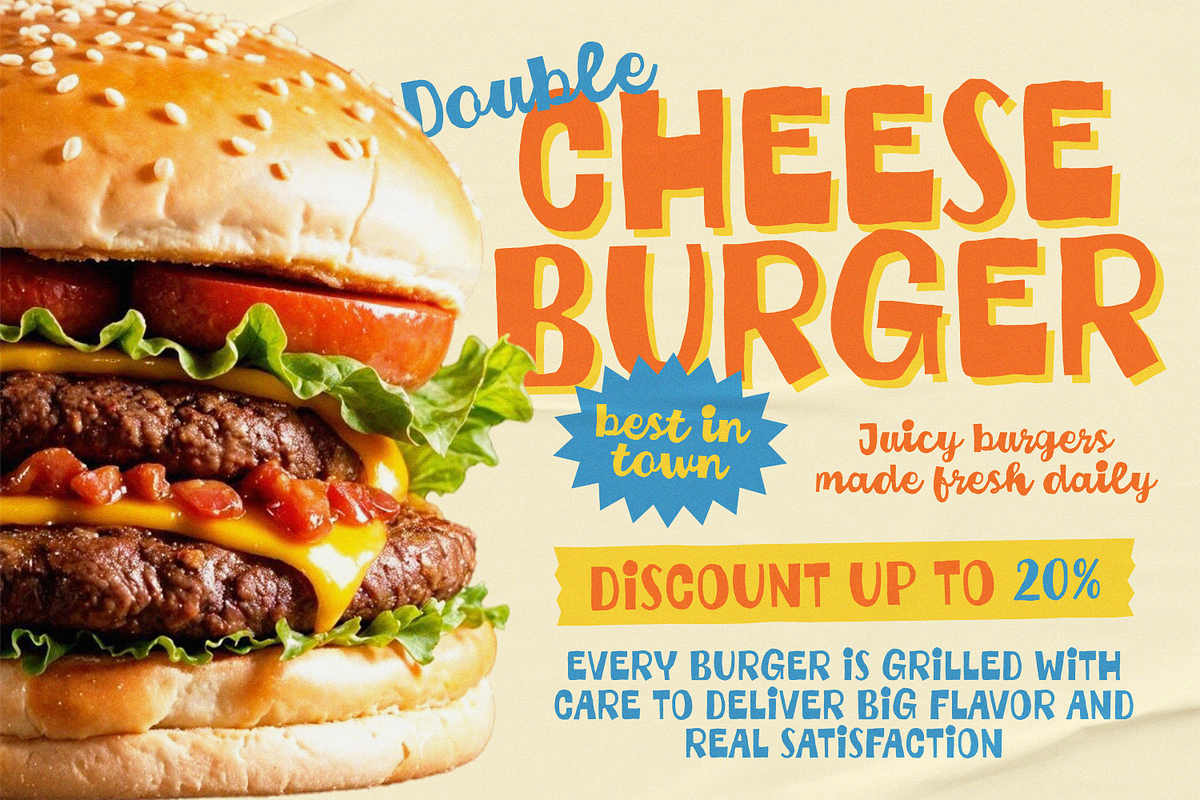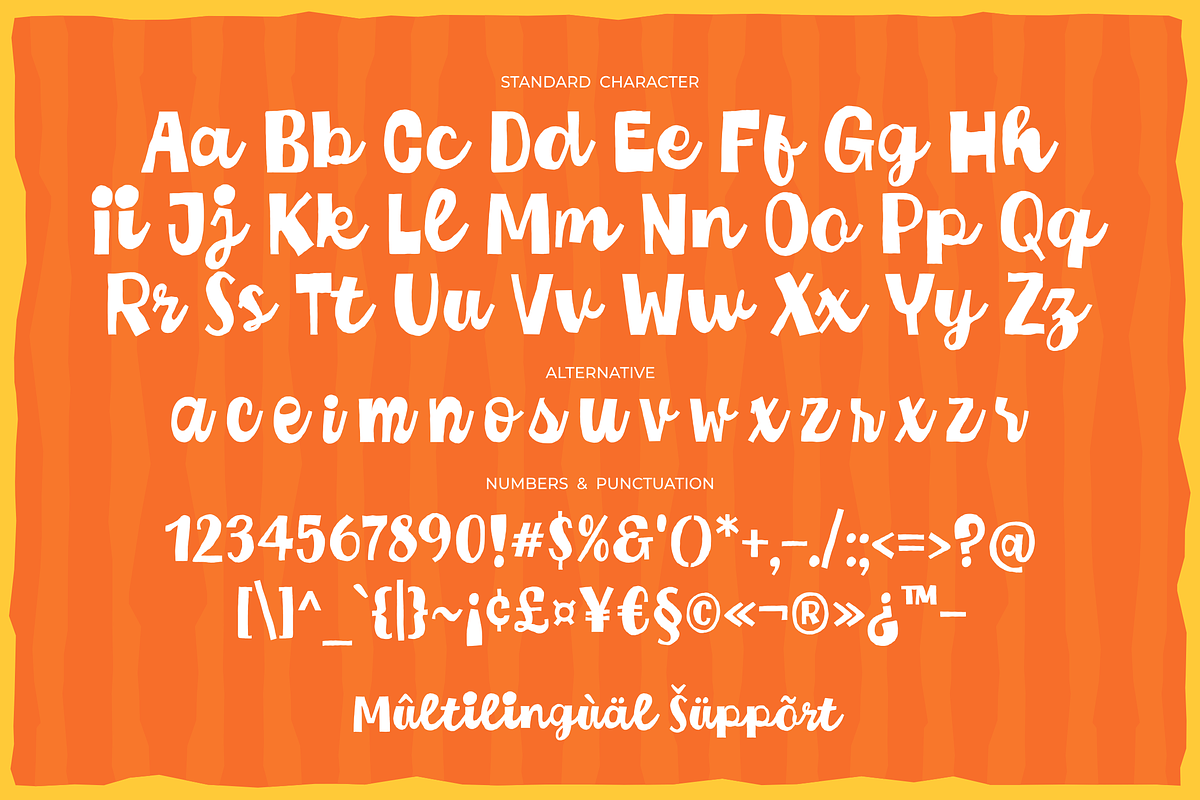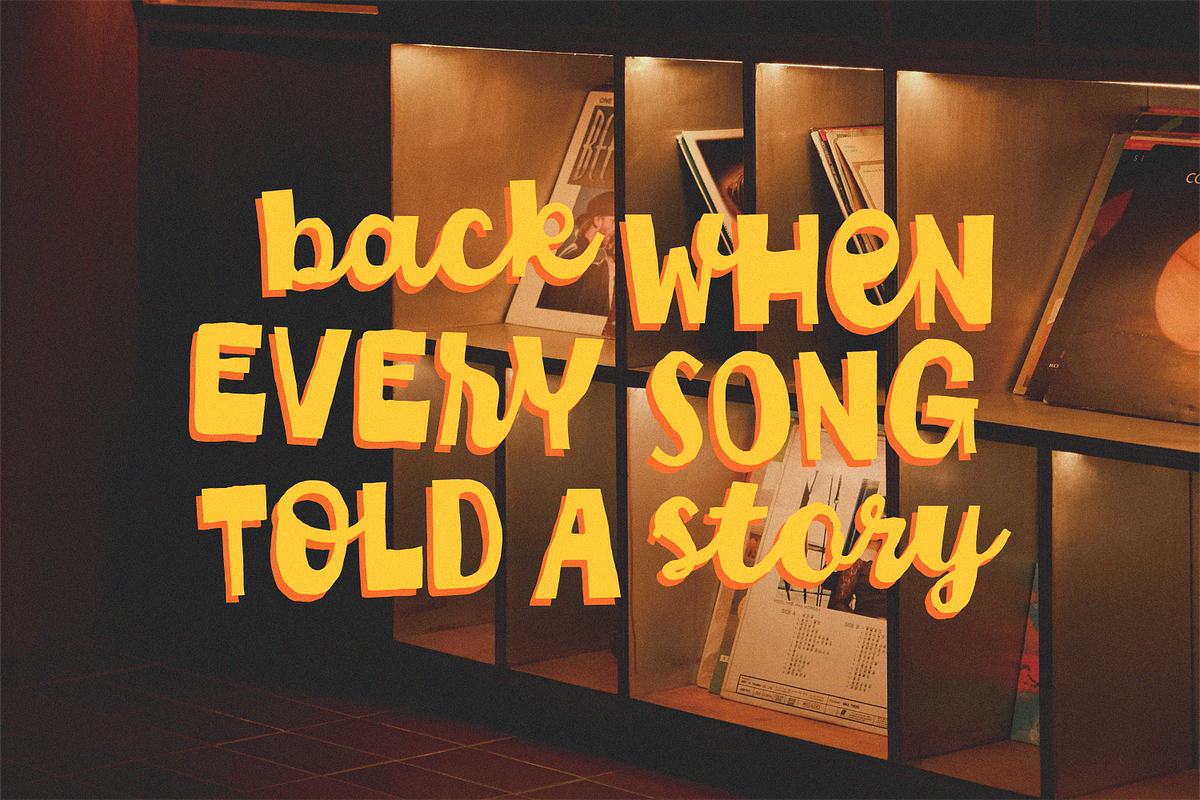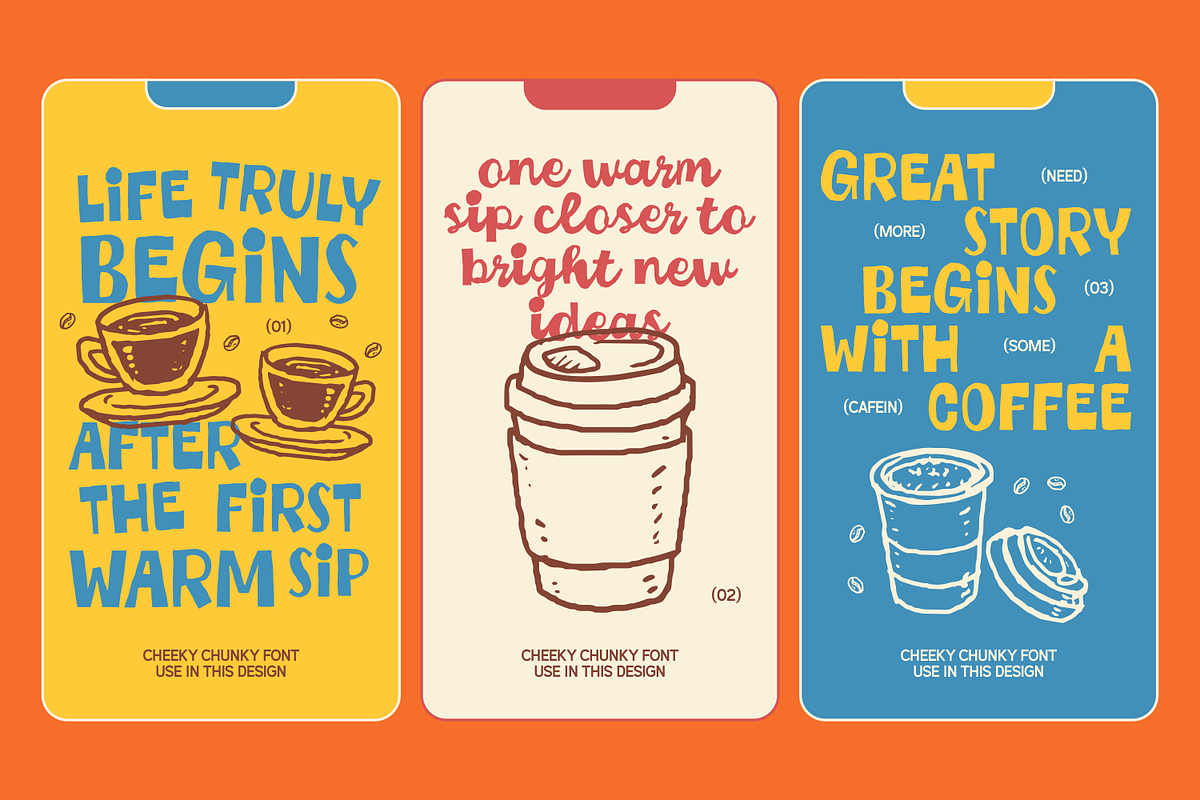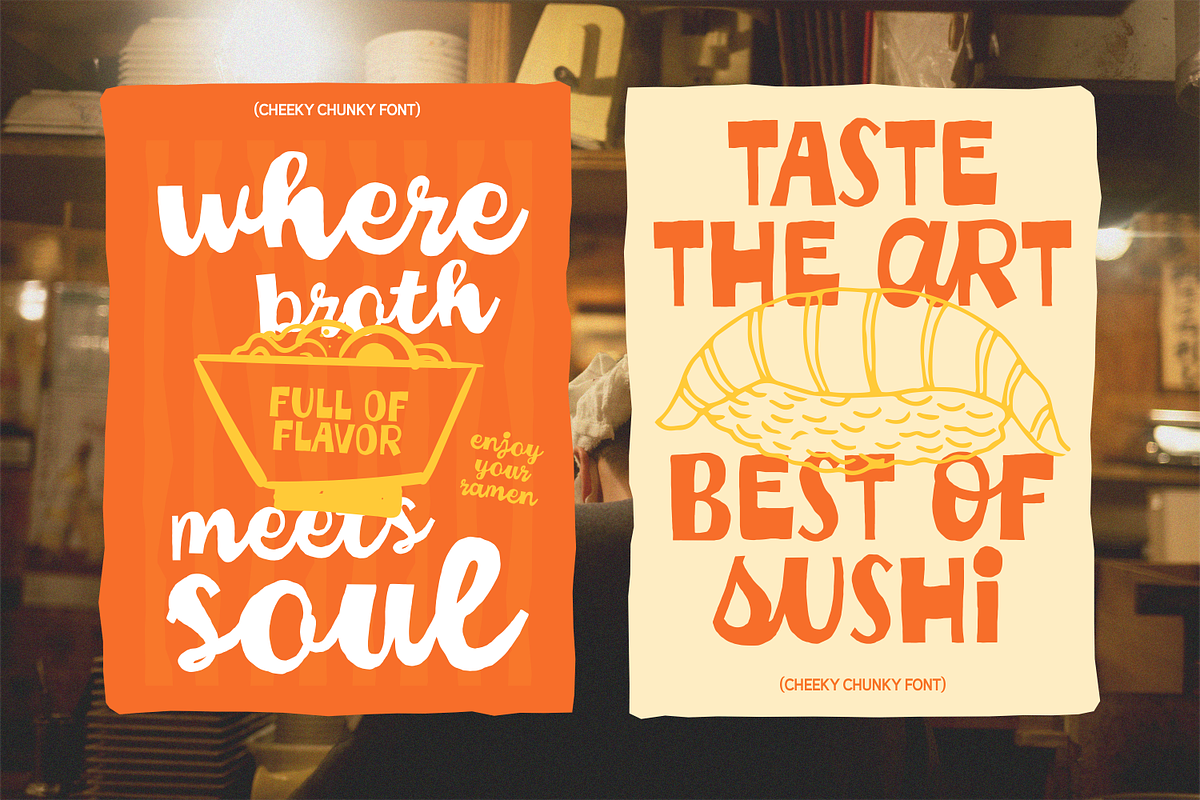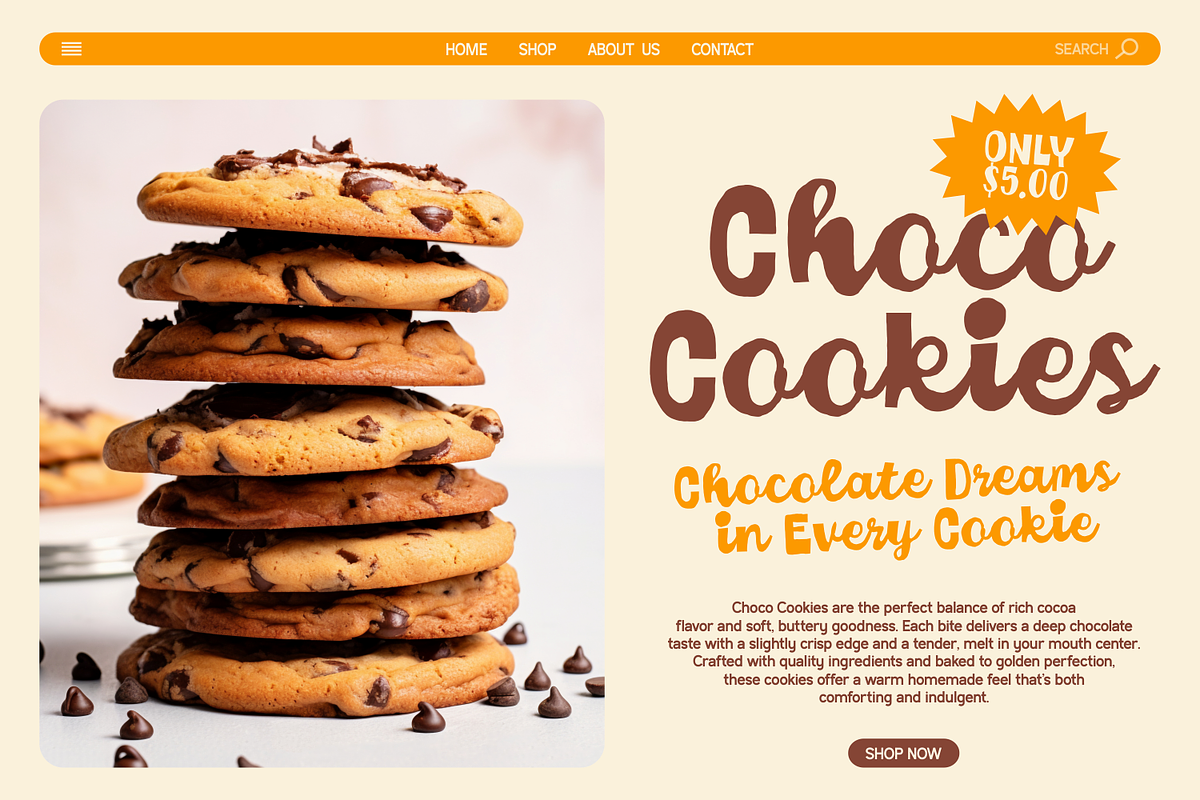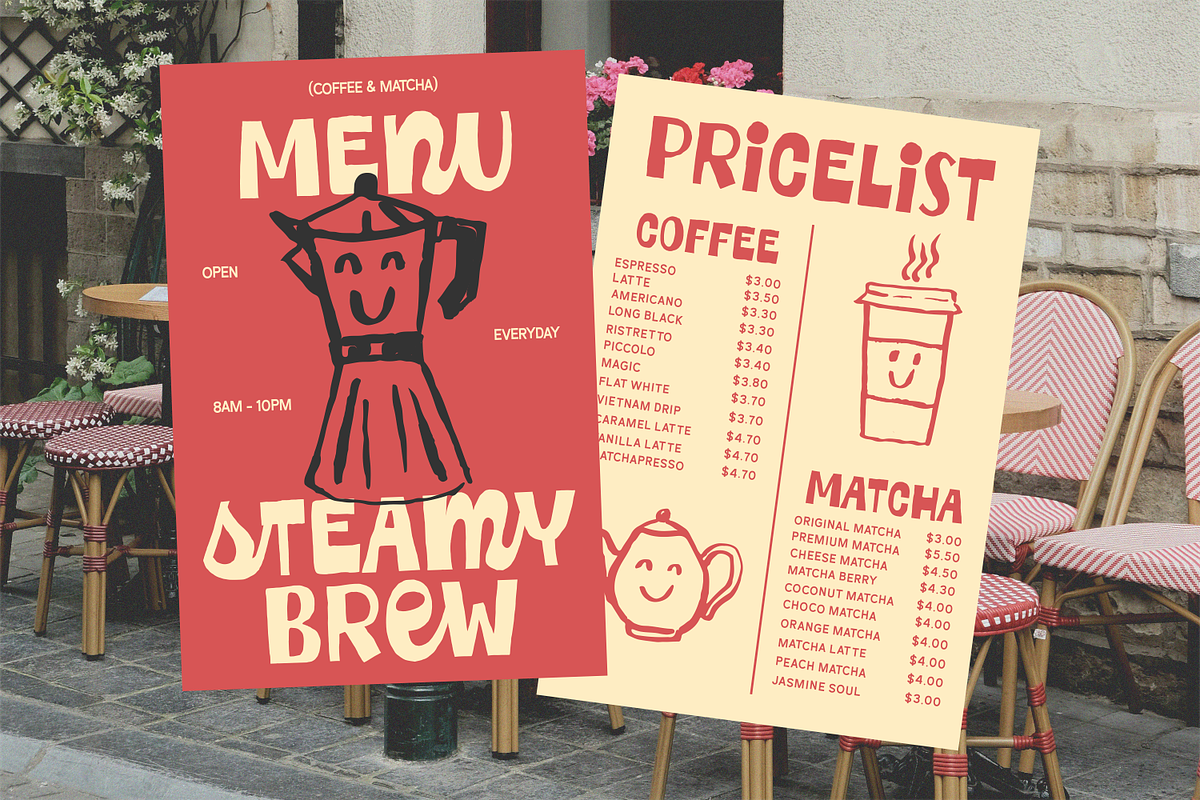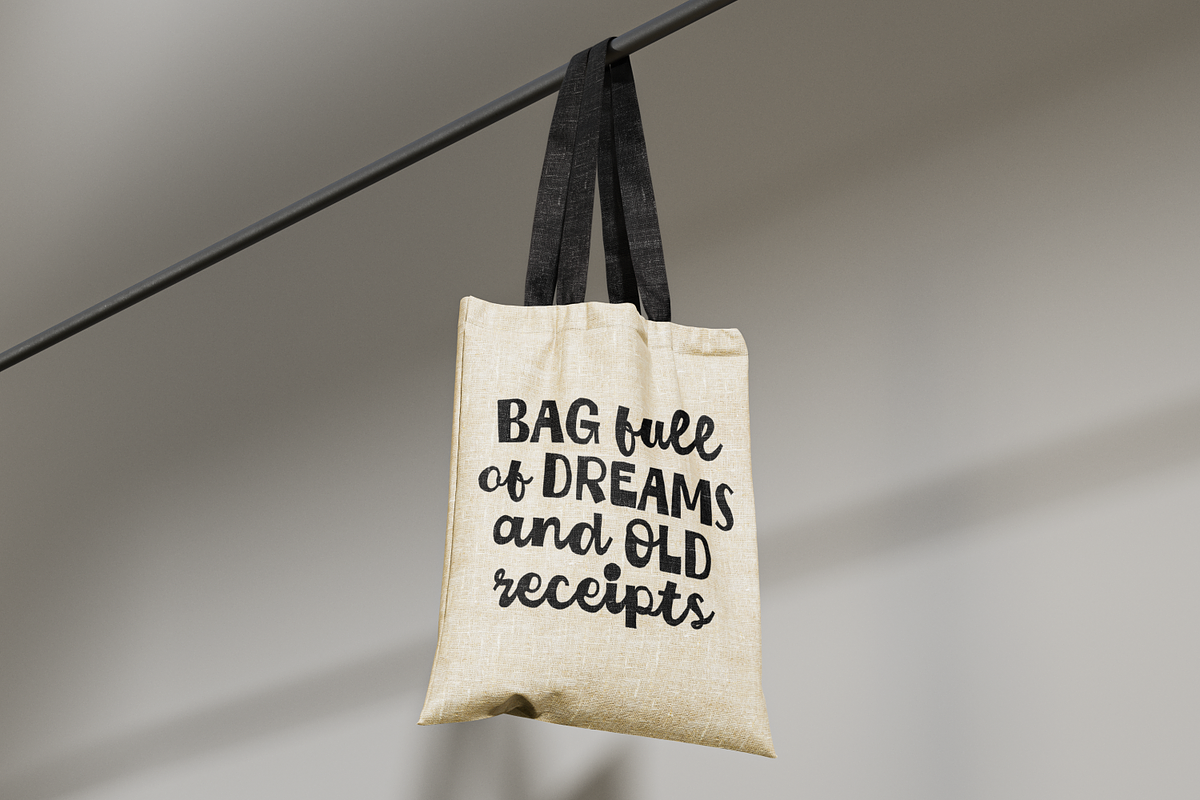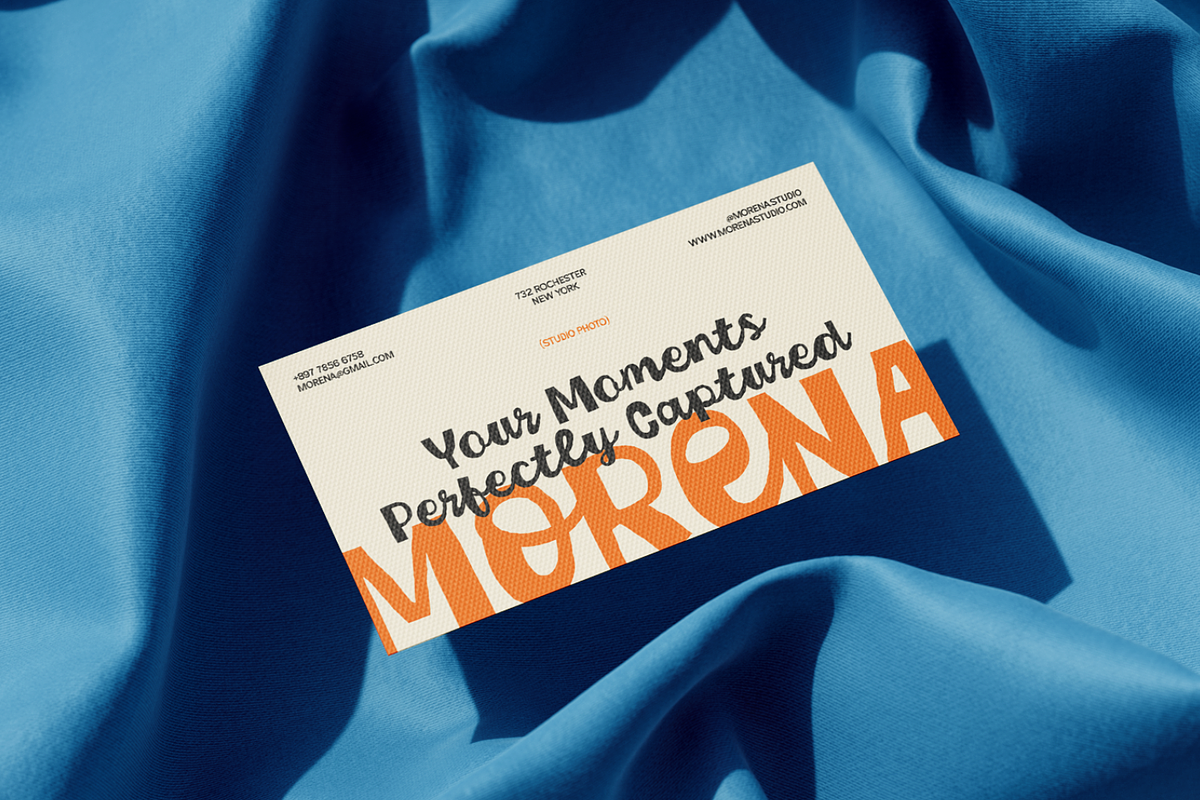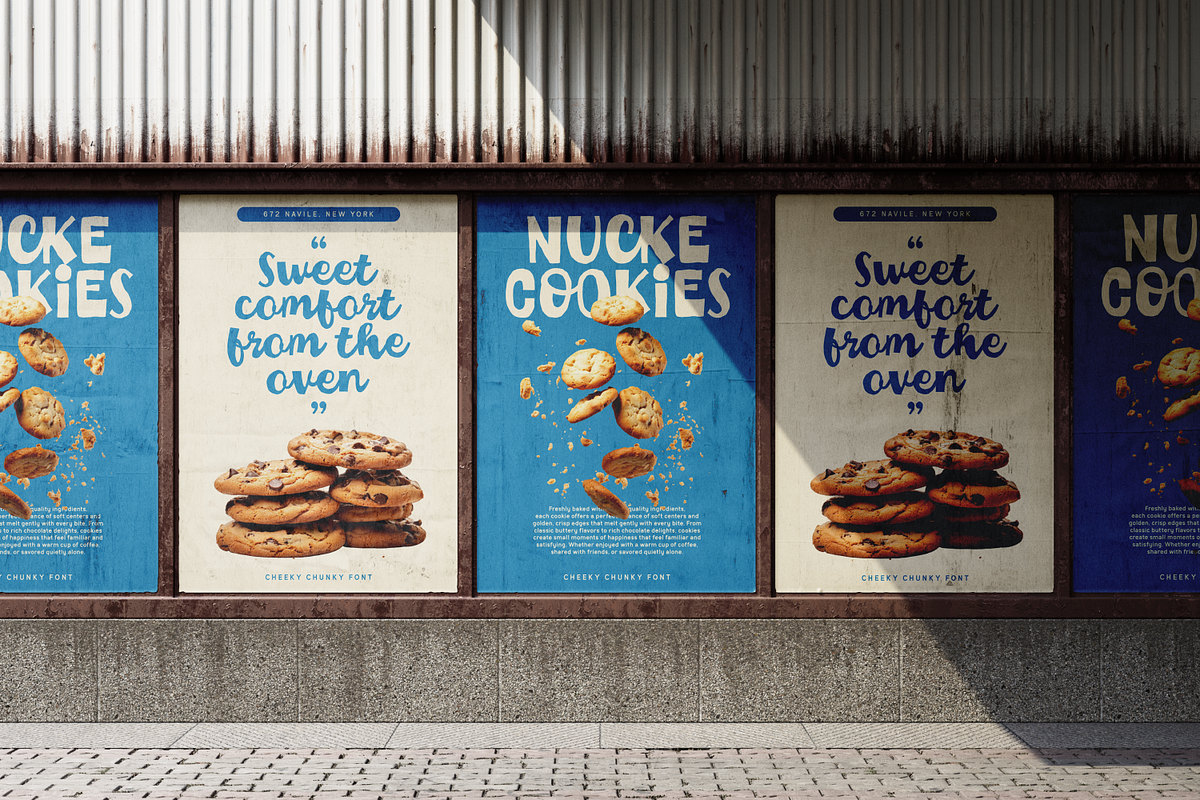
Cheeky Chunky - Sans Vibe Script
Cheeky Chunky is a playful duo font that combines bold, chunky uppercase sans letters with a lively, handmade lowercase script. Designed to bring fun, warmth, and personality into your designs, this font delivers a cheerful visual vibe without feeling childish.
The contrast between strong sans-serif capitals and expressive script lowercase creates a dynamic and flexible typographic system, perfect for eye-catching headlines, logos, packaging, and modern branding projects. With its chunky shapes and friendly curves, Cheeky Chunky feels energetic, approachable, and full of character.
Whether you’re working on food branding, social media graphics, posters, or product designs, Cheeky Chunky helps your message stand out with confidence and charm.